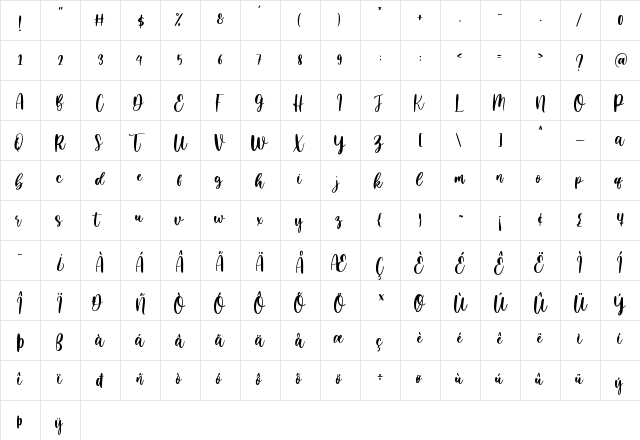
lovely sister Regular
| Designer | Muhamad Yusron Billah |
Design Context for lovely sister Typeface
lovely sister is a composed and adaptable typeface that performs quietly and consistently across a wide range of design contexts.